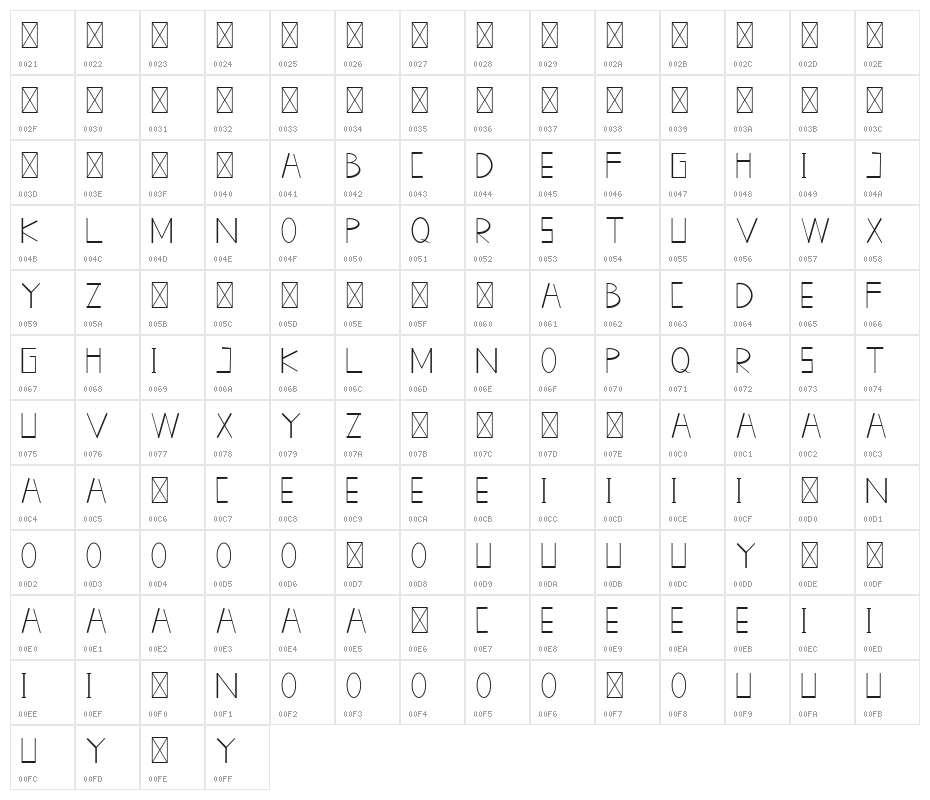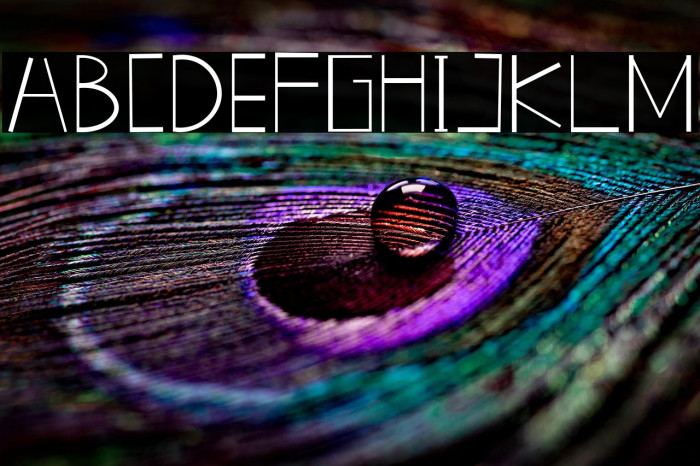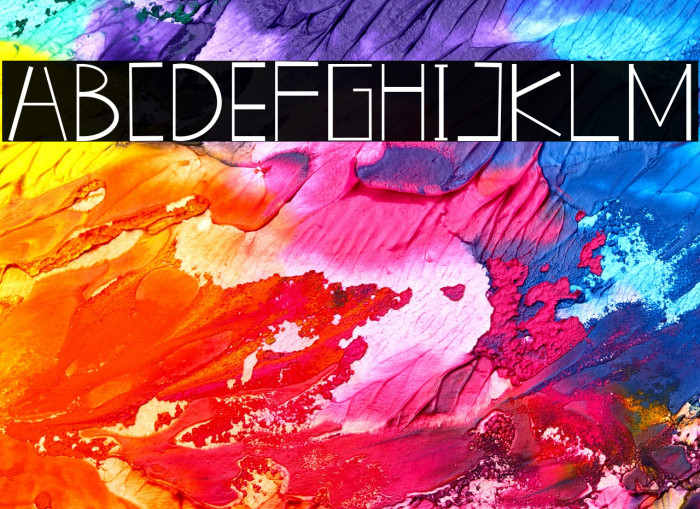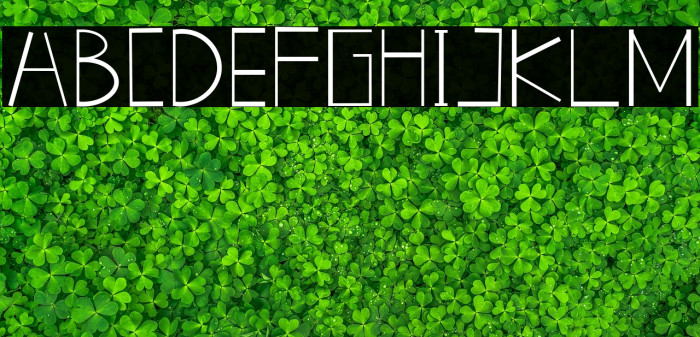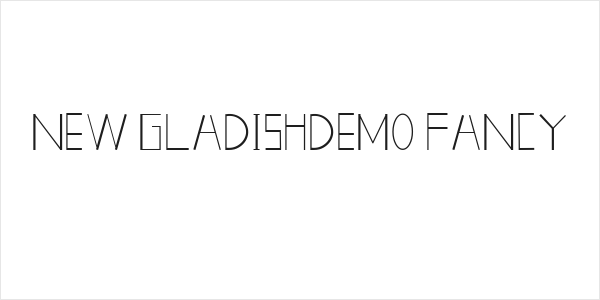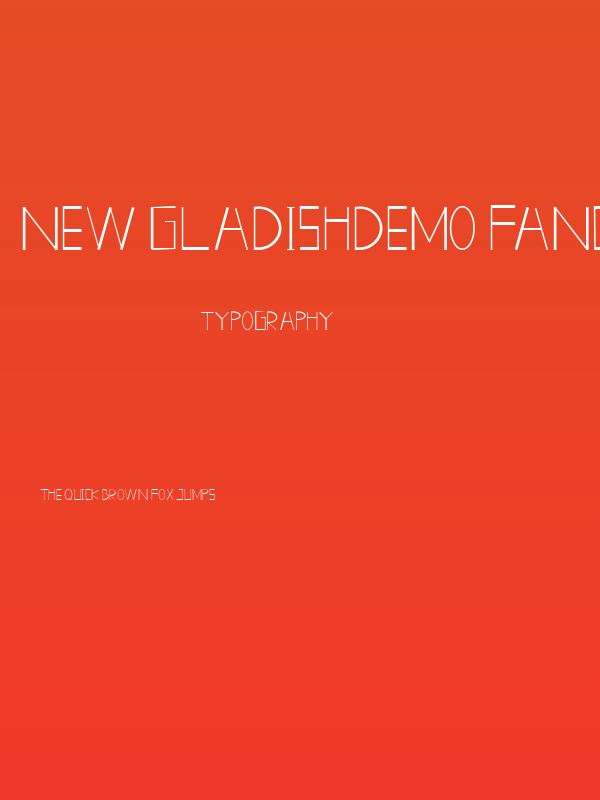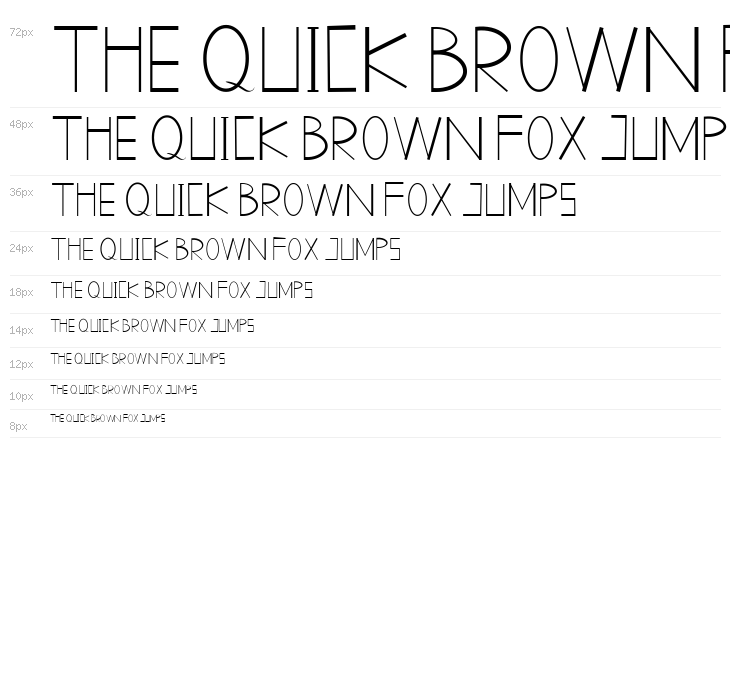
New GLADISHdemo Fancy Font
New GLADISHdemo Fancy Description
This font features a unique and artistic design, characterized by its geometric and angular letterforms. The uppercase letters exhibit a distinct style with sharp edges and a modern aesthetic, while the lowercase letters maintain a consistent geometric theme. The numerals are crafted to match the overall design, offering a cohesive look. Special characters are included, each designed with the same attention to detail and creativity. The font's style is both decorative and functional, making it suitable for a variety of design projects.